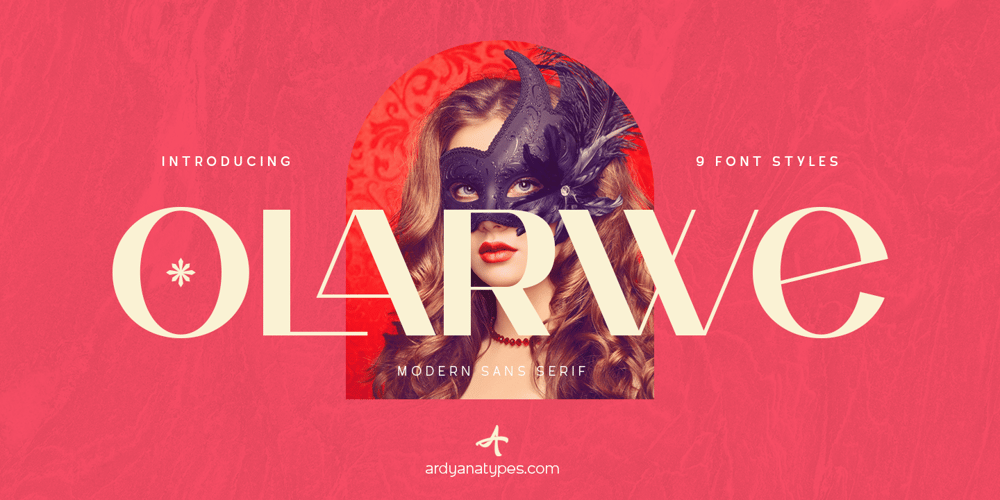
Olarwe Font Family was designed by Ardyana Putra and published by Ardyanatypes. Olarwe contains 9 styles and family package options. A modern and elegant look of a sans serif tagline. This font comes with nine levels of thickness, from light to black, according to your needs.It pairs well with san serif and modern script as pictured or stands alone as a representative header and brand for an elegant look.Olarwe is equipped with a professional modern character font that can present an elegant and attractive identity for your company for business use, such as business cards, name tags, and uniforms as brand elevation.This modern Olarwe typeface is suitable for embossing as letter nameplates or even sprinkling them in your office with elegant-looking cutting stickers.This elegant Olarwe-type shape also looks excellent for book covers or magazine articles.You can see all the available characters in the screenshot above, and you can try the modern & elegant Olarwe now for any design issues.Olarwe is also multilingual, making it easy to work with for any country and language use. It also comes with Ligatures and alternative stylistics to make your designs more attractive.